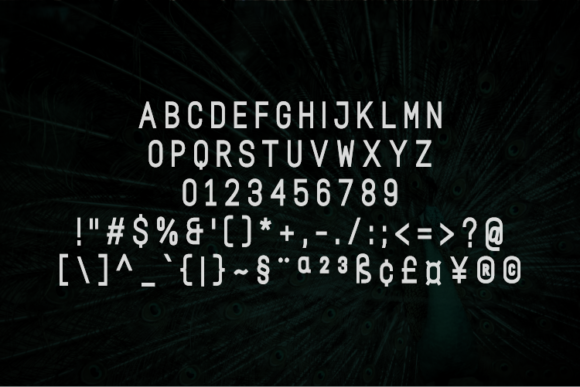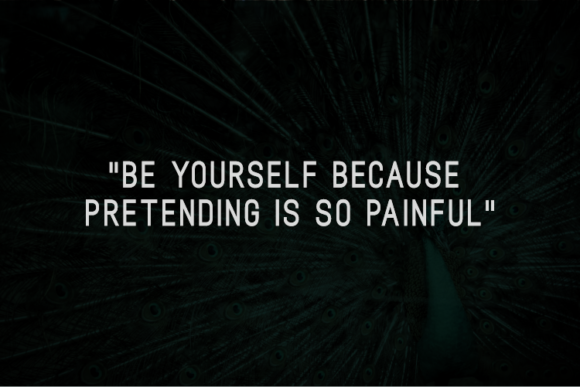
Founten Font: The Ultimate Minimalist Sans Serif for Your Designs
In the world of typography, a good font can make all the difference in the success of a design project. Whether you’re a seasoned designer or a crafty DIY enthusiast, finding the right font can be a daunting task. That’s why we’re excited to introduce you to Founten Font, a minimal yet elegant sans serif font that’s sure to become your new go-to.
The Beauty of Simplicity
Founten Font boasts a neat and simple style that’s perfect for a wide variety of designs. Its minimalist approach makes it an excellent choice for projects where clarity and legibility are key. The font’s clean lines and uncluttered aesthetic ensure that your message gets across without any distractions, making it ideal for use in:
- Headings and titles
- Body text and paragraphs
- Signage and display boards
- Digital and print materials
What Makes Founten Font Stand Out?
So, what sets Founten Font apart from other sans serif fonts on the market? Here are just a few reasons why we think it’s a cut above the rest:
- Unique character set: Founten Font features a comprehensive character set that includes uppercase and lowercase letters, numbers, and special characters.
- High legibility: The font’s carefully crafted letterforms ensure that your text remains clear and easy to read, even at small sizes.
- Versatility: Founten Font works beautifully in a variety of contexts, from digital screens to print materials.
- Elegant and sophisticated: The font’s refined aesthetic adds a touch of sophistication to any design, making it perfect for projects where a professional look is required.
How to Use Founten Font in Your Designs
- Easy to read: Founten Font’s high legibility makes it perfect for use in body text and paragraphs.
- Professional look: The font’s sophisticated aesthetic adds a touch of professionalism to any design.
- Flexible: Founten Font works beautifully in a variety of contexts, from digital screens to print materials.